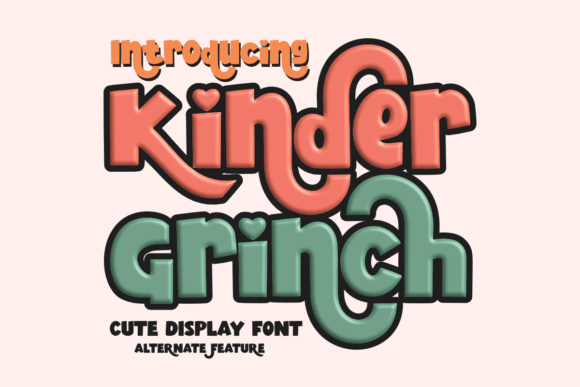
The Perfect Blend of Playfulness and Whimsy: Kinder Grinch Font
Have you ever been brainstorming a new design project, and suddenly, a burst of creativity hits you like a ray of sunshine on a cloudy day? It’s that moment when the perfect idea strikes, and you can’t wait to bring it to life. For designers, those “aha!” moments are the best, and they often require the right tools to make them happen. That’s where the Kinder Grinch Font comes in – a charming display font that adds a touch of playfulness and whimsy to any project.
This delightful font is perfect for designers looking to create retro-inspired designs, Valentine’s Day-themed projects, or even quirky logos and quotes. With its unique, hand-drawn feel, Kinder Grinch Font is sure to add a personal touch to any design. Whether you’re working on a custom t-shirt design, a mug, or a vinyl sticker, this font is a valuable addition to any designer’s toolkit.
- Unique Characteristics: Kinder Grinch Font features a distinctive, childlike style with irregular shapes, rounded edges, and a whimsical feel, making it ideal for children’s books, educational materials, and playful designs.
Kinder Grinch Font Review
The Kinder Grinch Font is a unique and quirky font that can add a touch of whimsy to your design projects. Here are some things that work well:
- ✨ Playful and childlike feel: The Kinder Grinch Font is perfect for projects that require a sense of innocence and playfulness.
- ✨ Versatile: This font can be used for a wide range of projects, from children’s book illustrations to greeting cards and party decorations.
- ✨ Easy to read: Despite its playful feel, the Kinder Grinch Font is surprisingly easy to read, making it a great choice for text-based projects.
- ⚠️ Limited font styles: The Kinder Grinch Font only comes in a few different styles, which may limit its versatility in certain projects.
- ⚠️ Not suitable for formal projects: While the Kinder Grinch Font can be great for playful projects, it may not be the best choice for formal or professional projects.
- ⚠️ May be too childish for some audiences: Depending on your target audience, the Kinder Grinch Font may be too childish or immature for their taste.
Overall, I think the Kinder Grinch Font is a fun and creative addition to any designer’s toolkit. While it may have some limitations, its unique feel and versatility make it a great choice for the right projects.
Tips for Getting the Most Out of Kinder Grinch Font
For the best results, use Kinder Grinch Font for titles, headings, and emphasis.
Pair Kinder Grinch Font with a clean, modern sans-serif font for body text.
Experiment with different font sizes and styles to create a visually appealing design.
Common Use Cases for Kinder Grinch Font
Kinder Grinch Font is ideal for:
Children’s book covers and illustrations
Party invitations and decorations
Wedding stationery and decorations